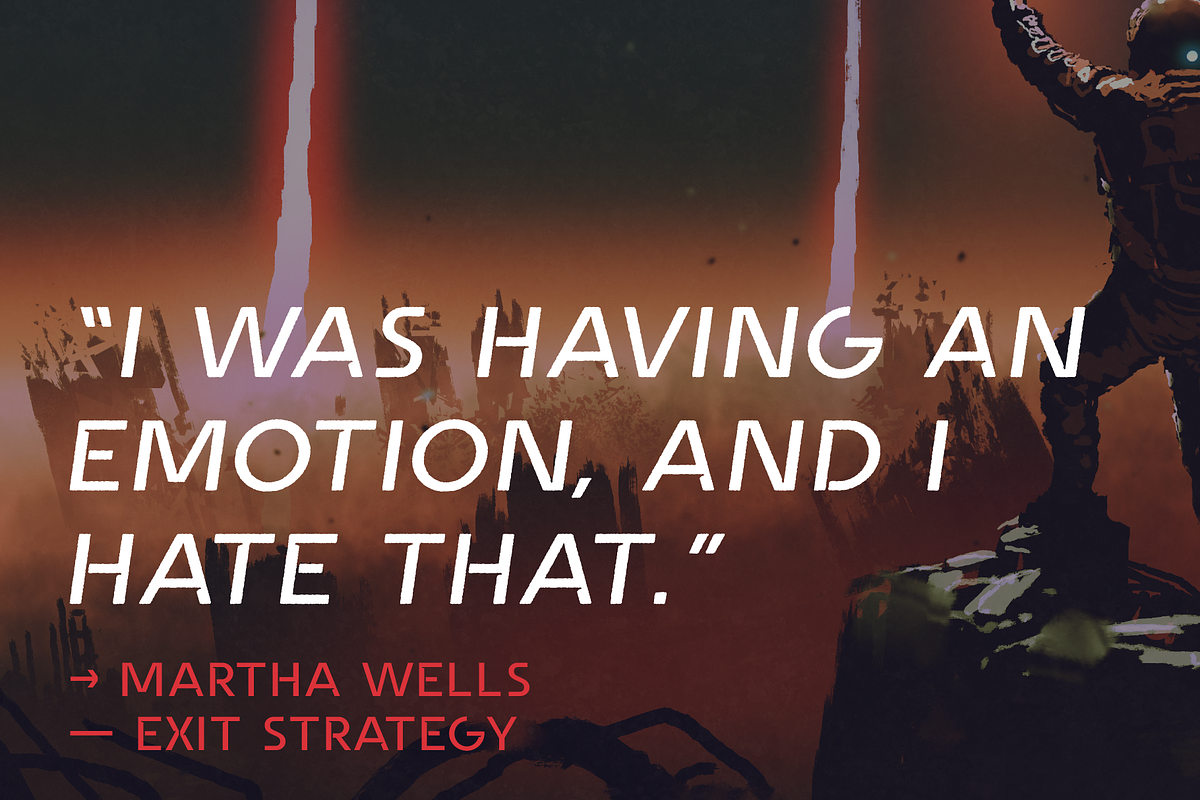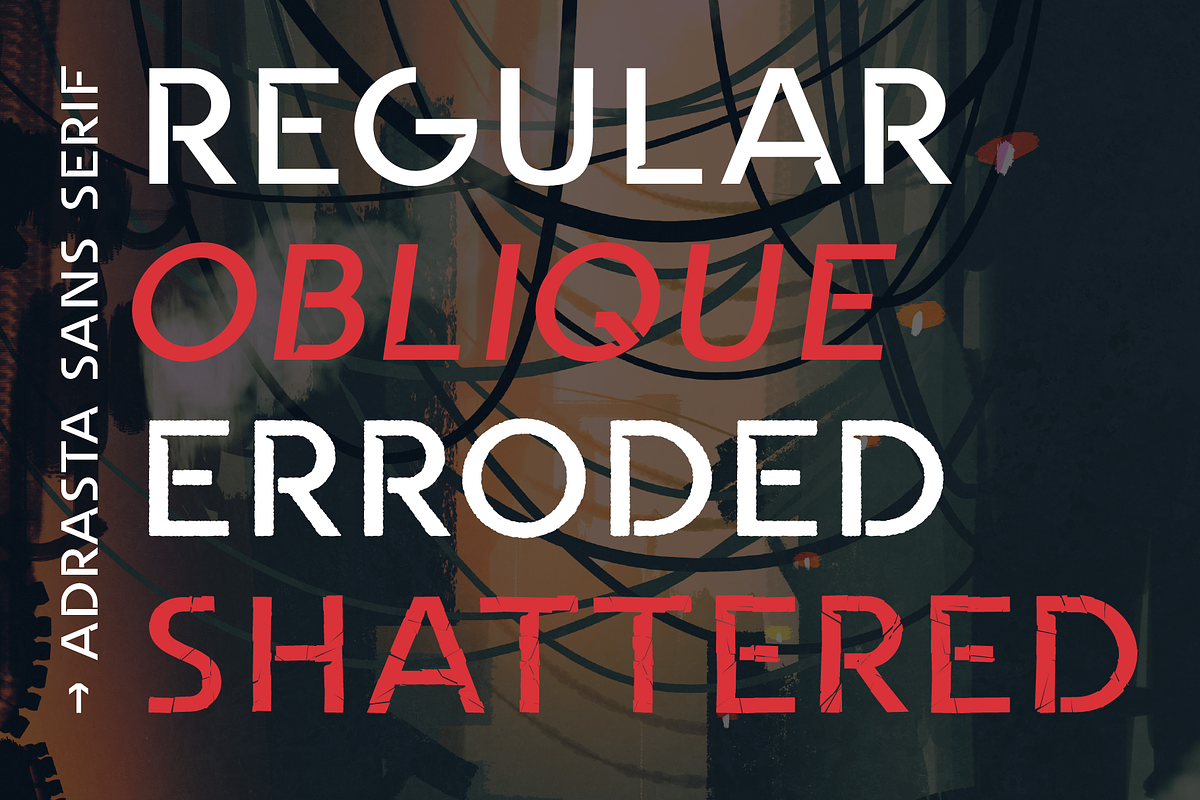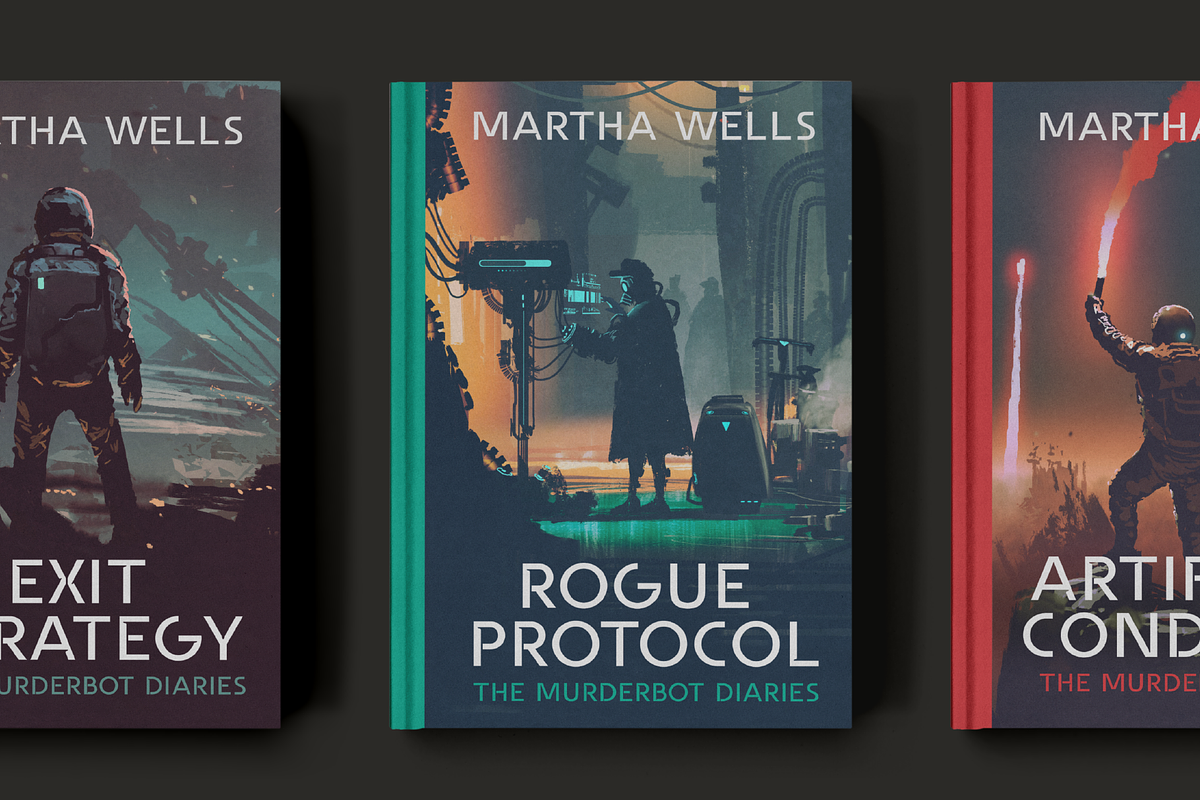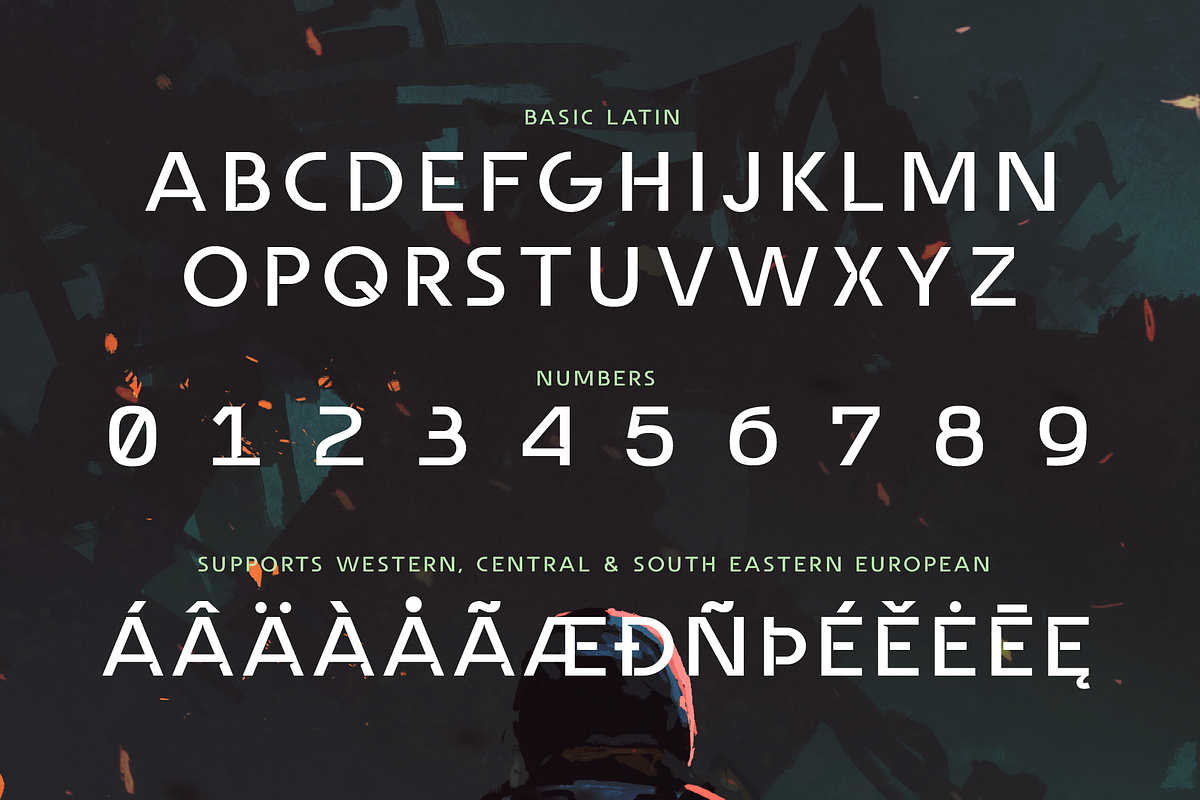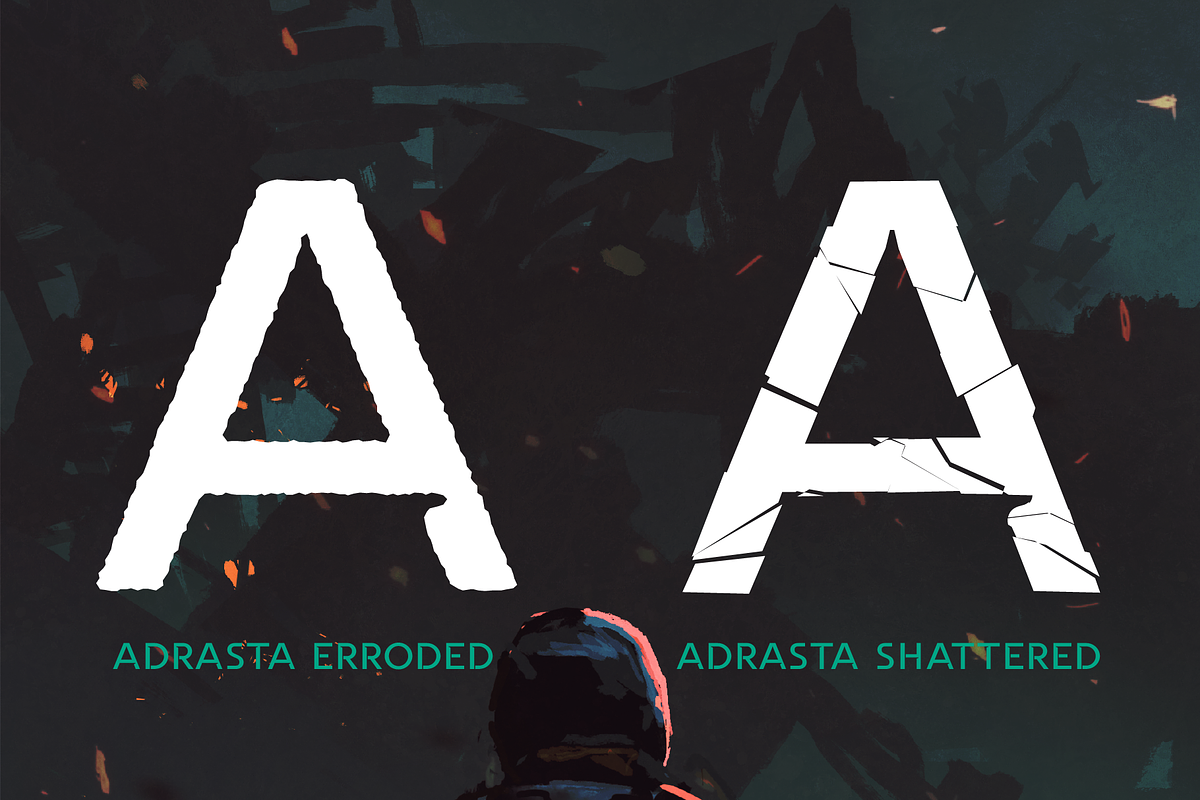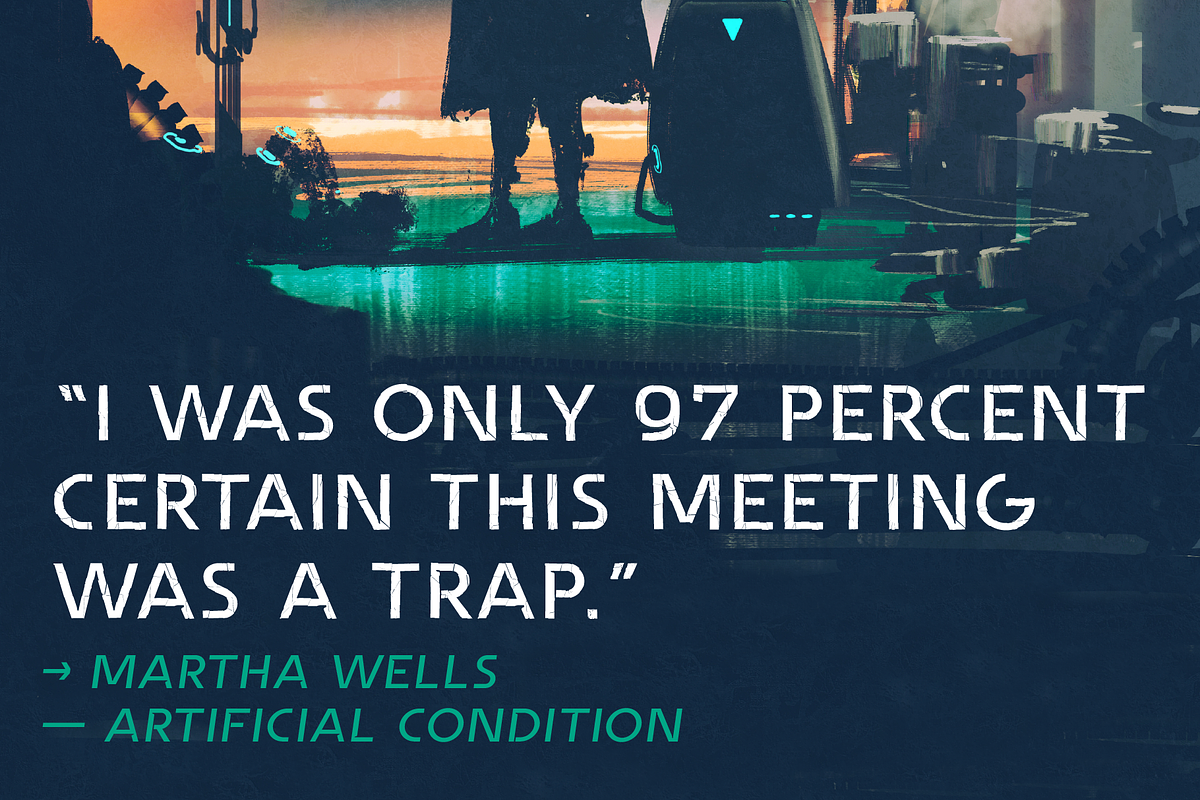
Adrasta - Sans serif typeface
Adrasta is a sans serif font family that consists of six fonts in different styles. It's a bit futuristic with an avant garde feeling and wedges in the letterforms. Well suited for science fiction:y projects or other display uses.
Supports 28 latin based languages: Afrikaans, Albanian, Catalan, Croatian, Czech, Danish, Dutch, English, Estonian, Finnish, French, German, Hungarian, Icelandic, Italian, Latvian, Lithuanian, Maltese, Norwegian, Polish, Portugese, Romanian, Slovak, Slovenian, Spanish, Swedish, Turkish, Zulu.